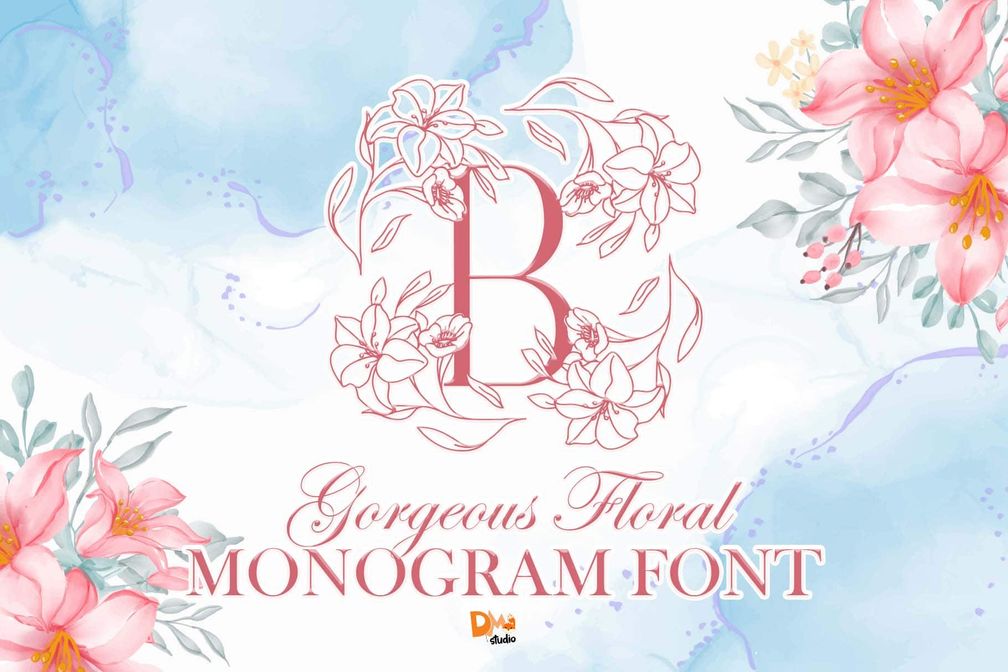
Gorgeous Floral Monogram
Gorgeous Floral Monogram – Elegant & Hand-Drawn Botanical Monogram Font
Gorgeous Floral Monogram is a beautifully detailed monogram font featuring hand-drawn floral illustrations that exude charm and sophistication. Perfect for wedding invitations, elegant branding, personalized gifts, boutique packaging, and artistic projects, this font brings a delicate botanical touch to every design. Each letter is crafted with intricate floral elements to create a timeless and romantic aesthetic.
• Hand-Drawn Floral Details – Each character is adorned with gorgeous botanical elements for a refined and graceful look.
• Timeless Aesthetic – A beautiful blend of nature and elegance in monogram form.